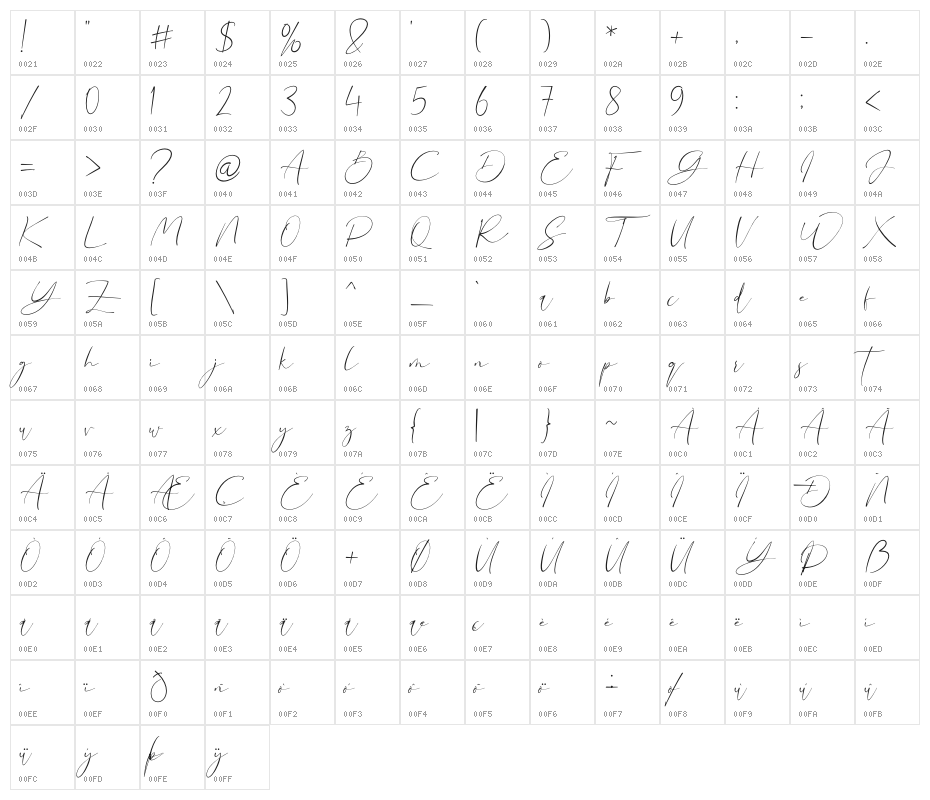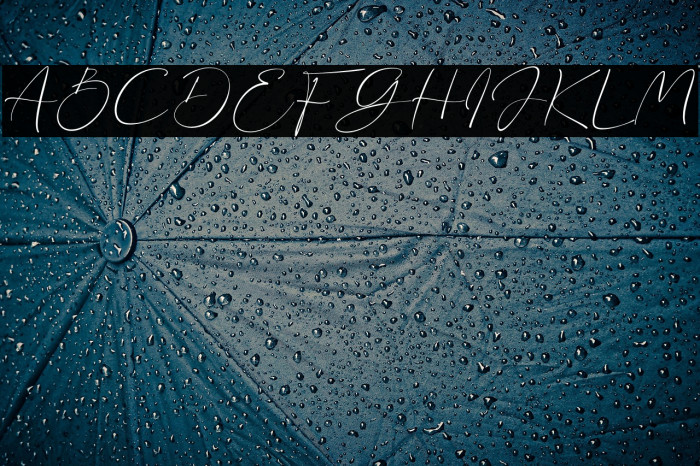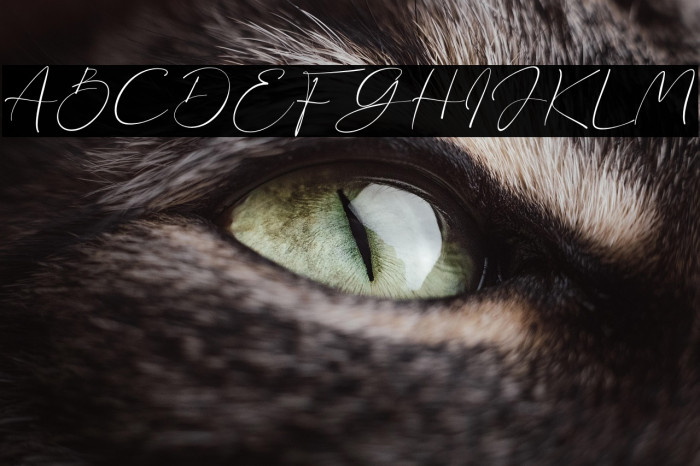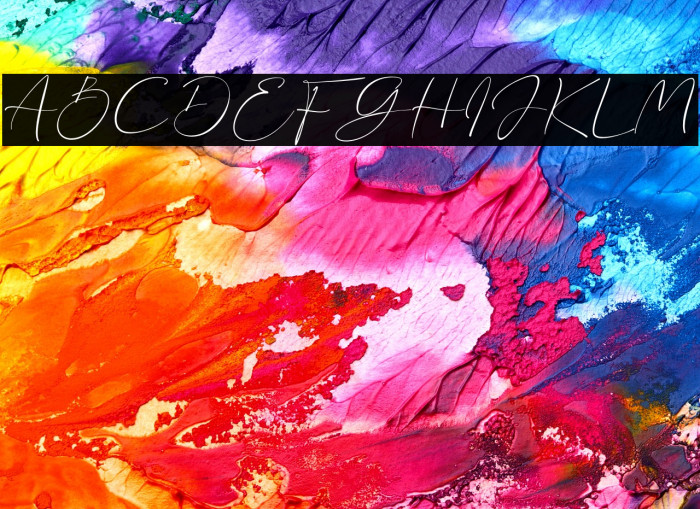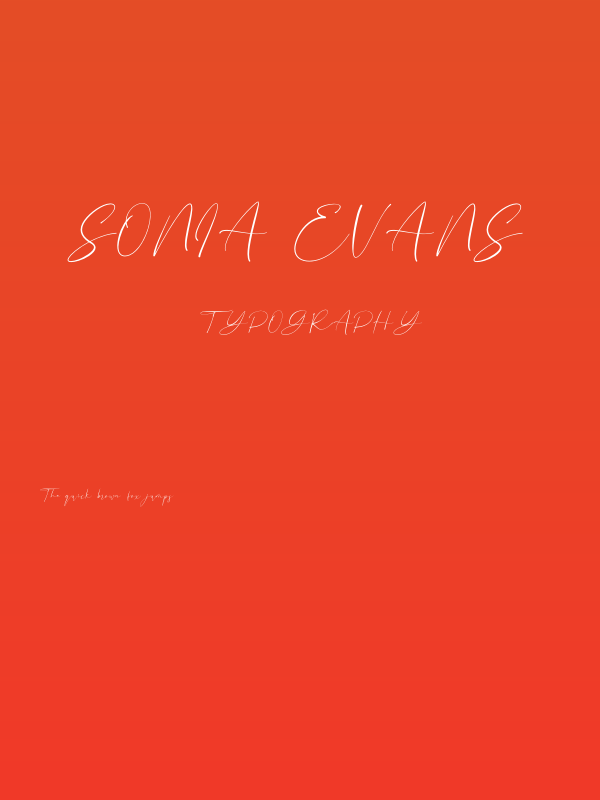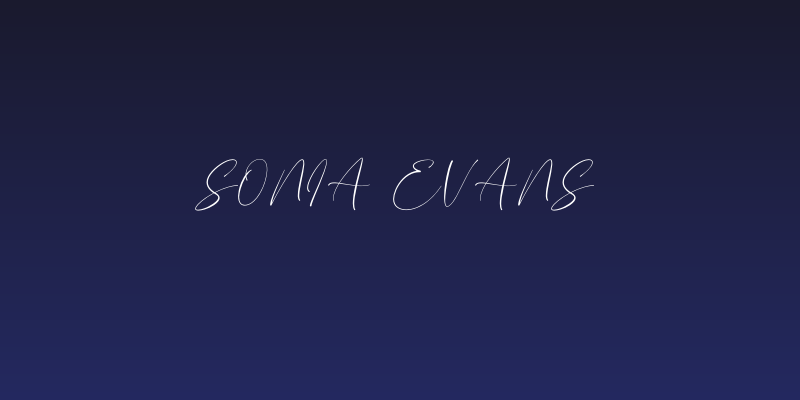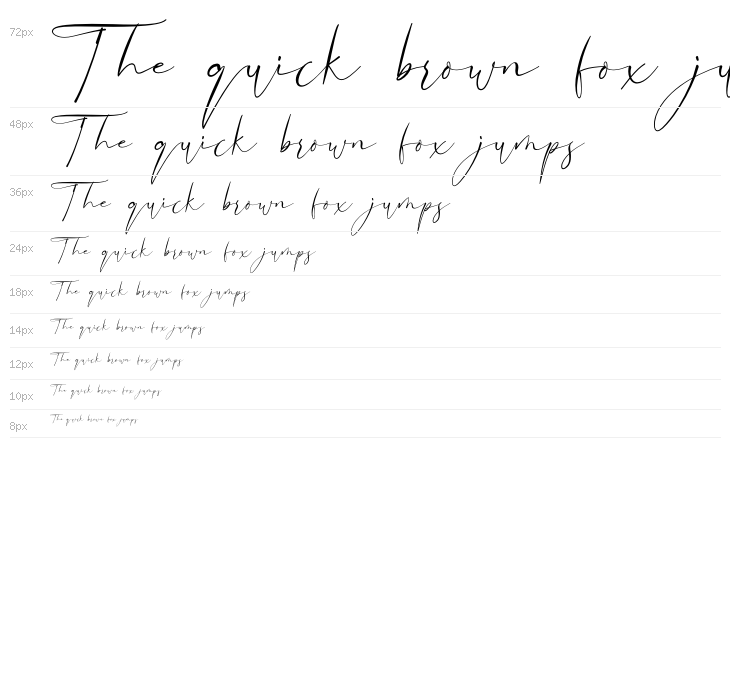
Sonia Evans Font
Sonia Evans Description
A delicate, flowing handwritten script with tall ascenders, long descenders, and a light, airy stroke. The characters are loosely connected, with a casual yet elegant appearance, and the overall spacing is generous, giving it a modern, personal touch.
| Overall Style | Modern, Decorative, Elegant |
| Use Case | Logos, Invitations, Headlines, Personal notes |
| Proposed Projects | Wedding invitations, personal branding, greeting cards, social media graphics, feminine product packaging. |